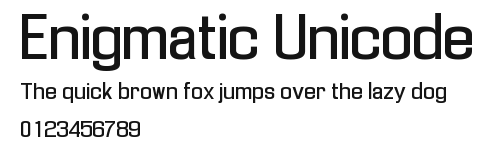
• Font Name: Enigmatic Unicode
• Designer: Darren Rigby
• Manufacturer: Starving-4 Entertainment
• Description: I created this font in FCP's thirty day trial. Since then it's undergone a number of renovations, and it's looking pretty good.
Enigmatic Unicode.ttf is a modern, elegant sans-serif font designed for ultimate readability and visual harmony. Perfect for branding, headlines, web design, and print materials.